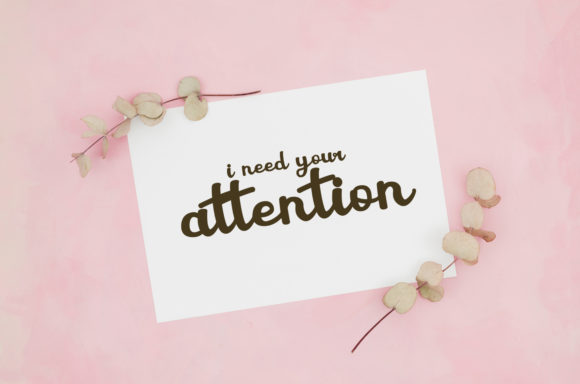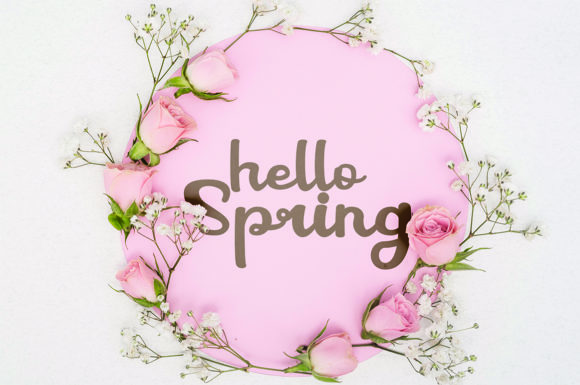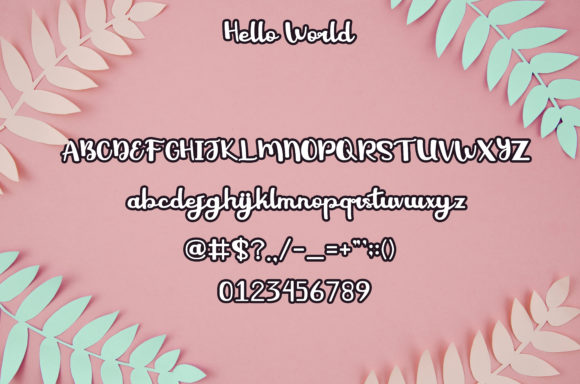
Hello World Font
About Hello World Font
Hello World is a sweet and friendly handwritten font. Its natural and unique style makes it incredibly fitting to a large pool of designs. The only limit is your imagination!